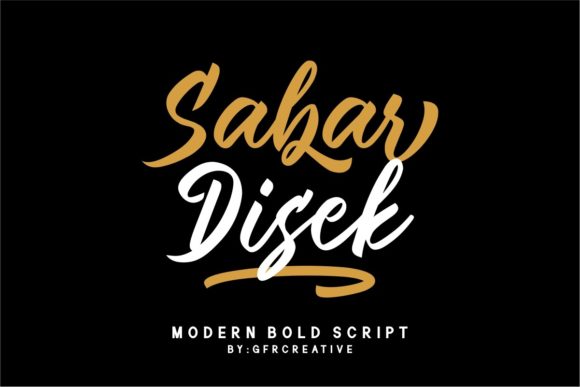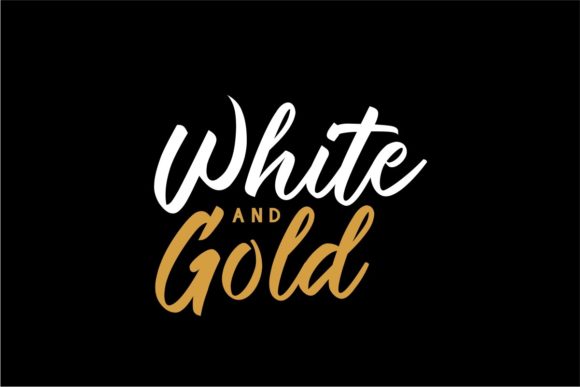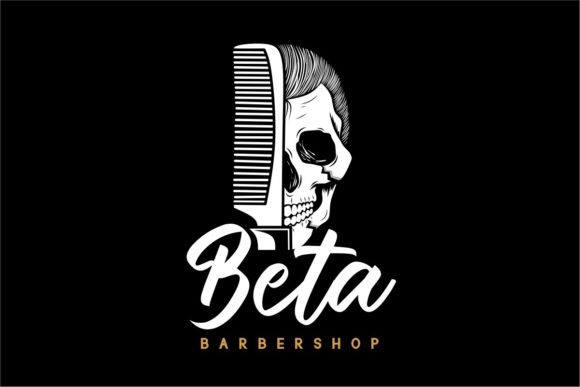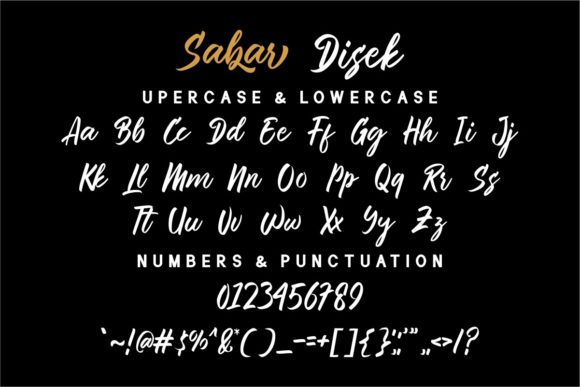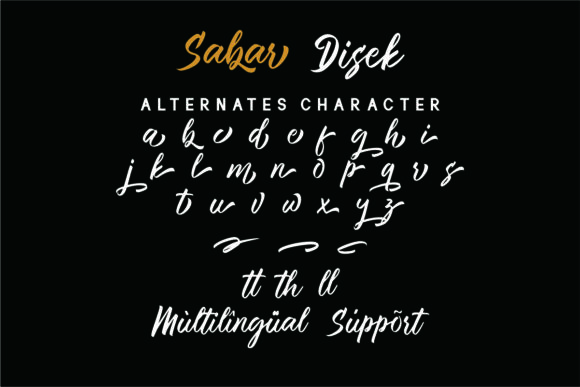
Sabar Disek Font
About Sabar Disek Font
Sabar Disek is an equally sophisticated and bold handwritten font that’s great for delivering any message with confidence, authenticity and charm. This font is PUA encoded which means you can access all glyphs and swashes with ease!